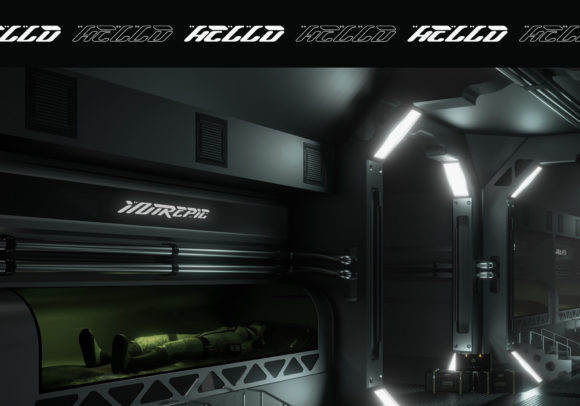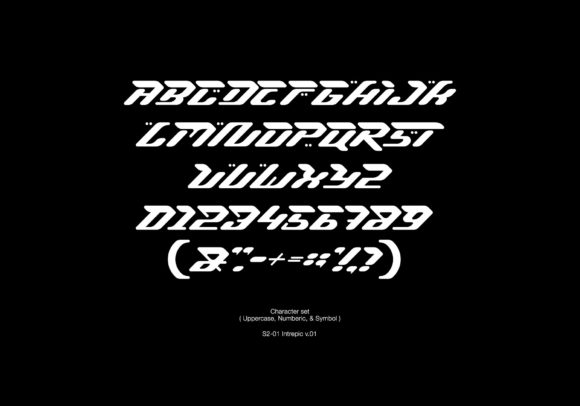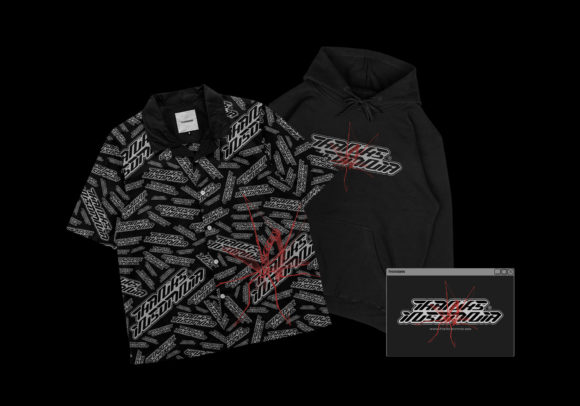
Introduction to Intrepic Font
Intrepic is a modern and cool display font.
With smooth, futuristic lines and just a touch of contrast, Intrepic works beautifully for logos, branding, and web headings Add this font to your most creative ideas, and notice how it makes them stand out.
Key Features of Intrepic Font